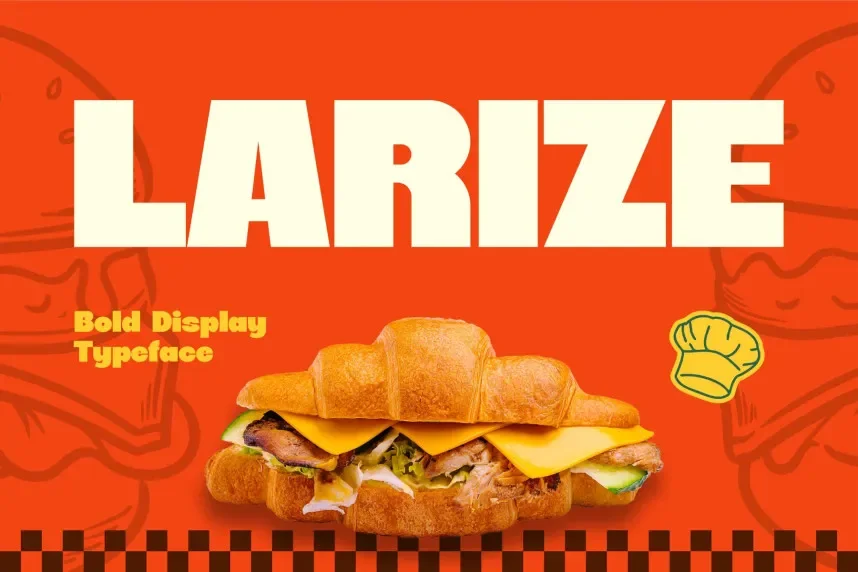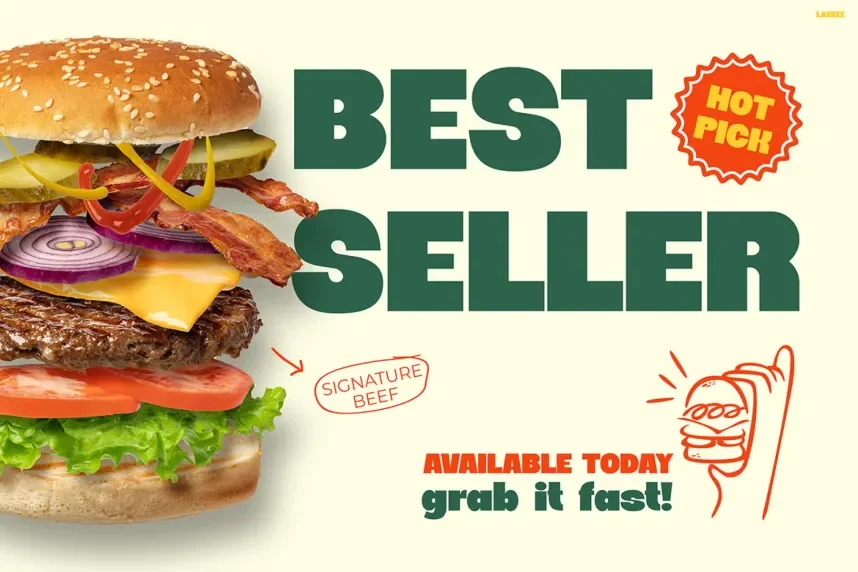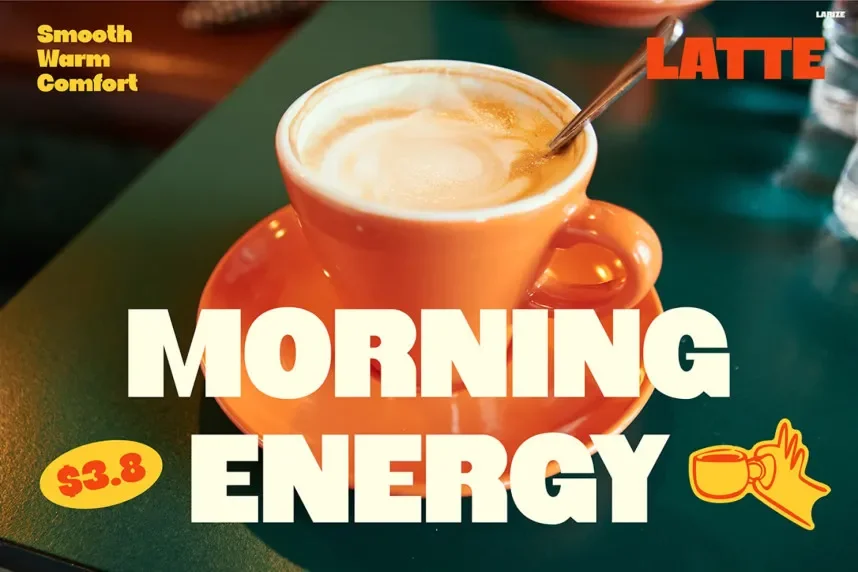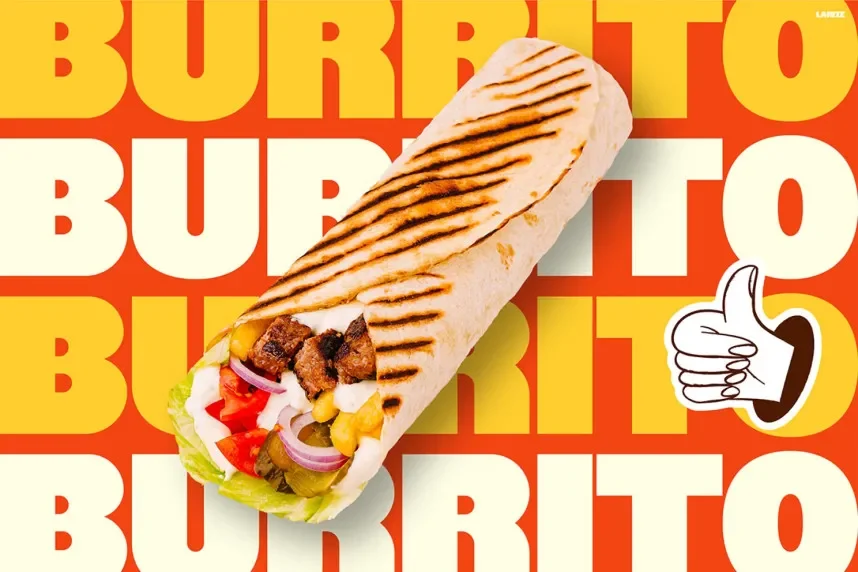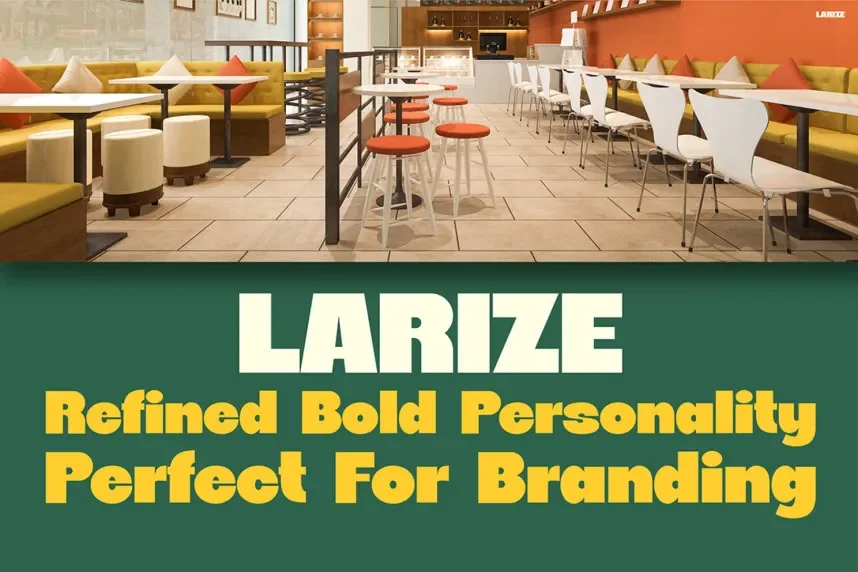
Larize Font is a script typeface created to solve a common design challenge: adding a handwritten feel without reducing readability. Designers often use script fonts for signatures, branding, and social media graphics where natural flow and clarity are required.
Larize Font falls under the script / handwritten font category. Its letterforms use connected strokes, smooth curves, and light stroke contrast that reflect natural pen movement. The font includes simple ligatures that improve letter connections while avoiding heavy swashes that can affect legibility. Character spacing stays consistent, which helps maintain clarity at medium and large sizes.
Designers commonly apply Larize Font to logo marks, personal branding, Instagram posts, email signatures, and wedding stationery. It works best for short text such as names, quotes, and headings. For structured layouts, Larize Font pairs well with a neutral sans-serif font like Poppins or Open Sans for body copy and supporting text.